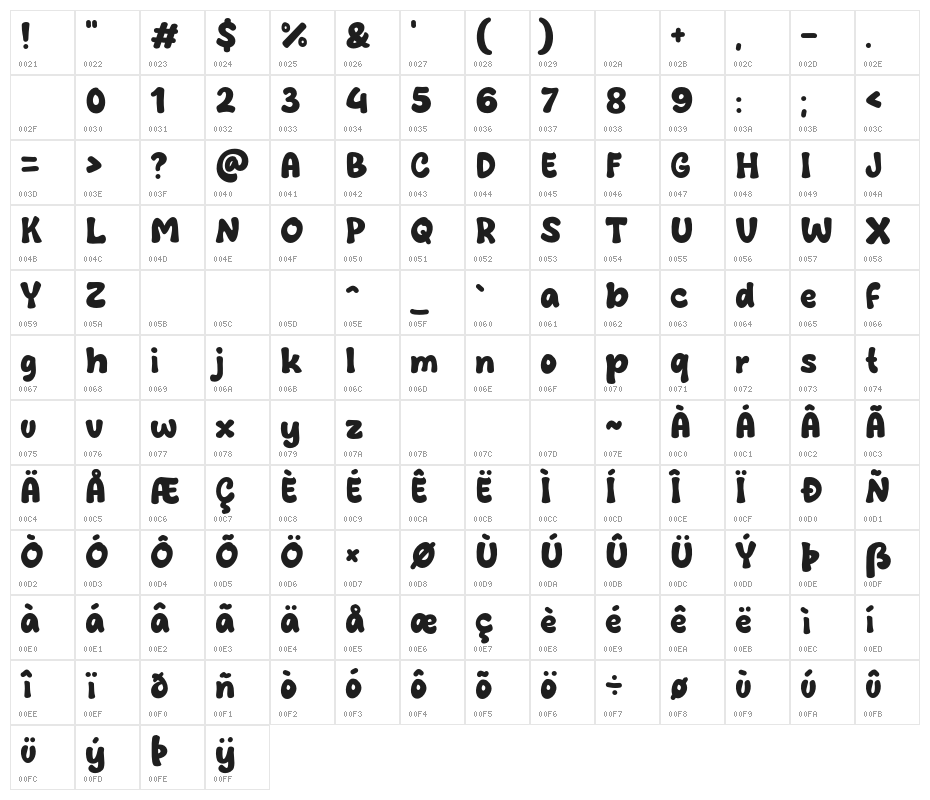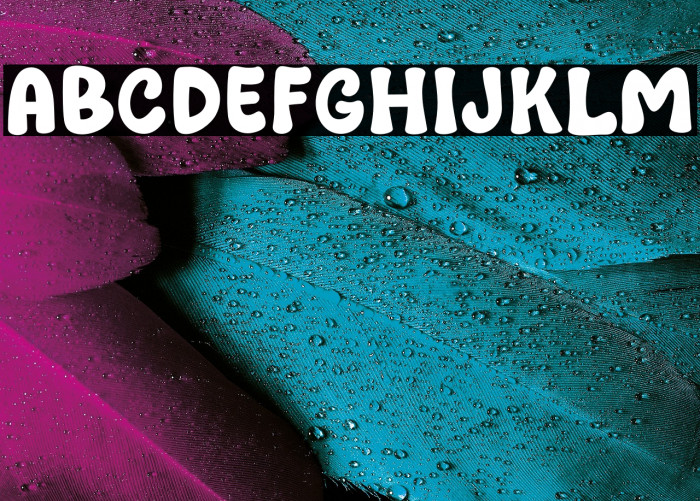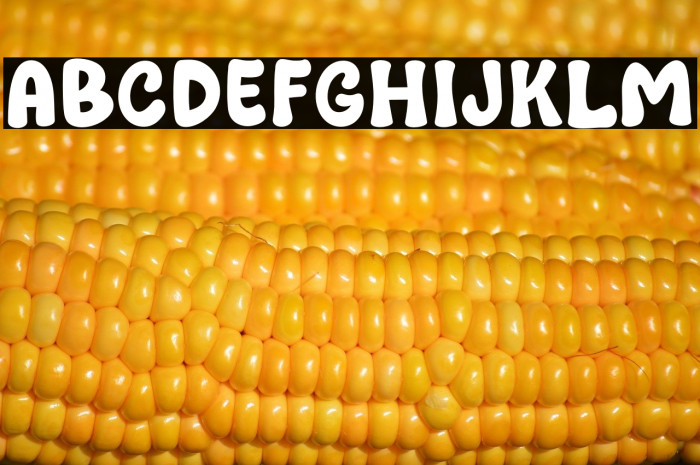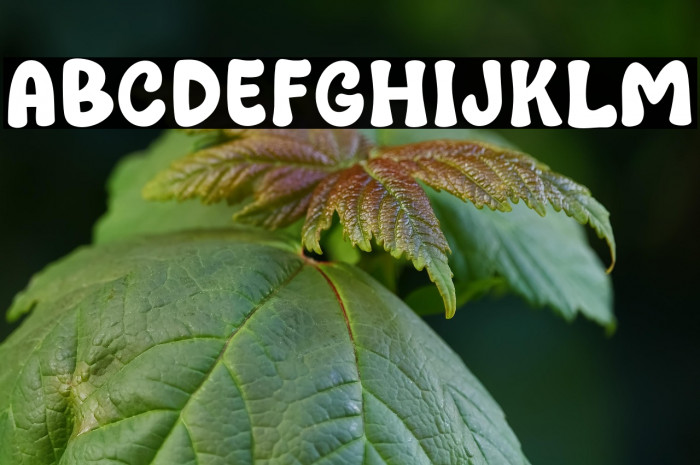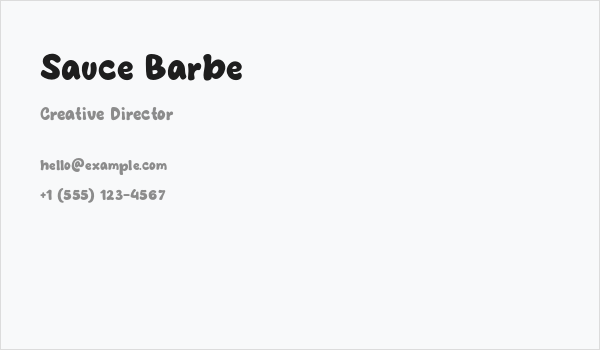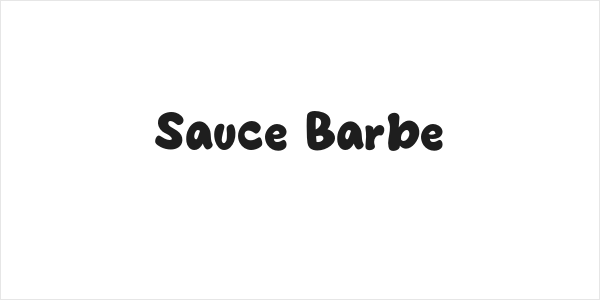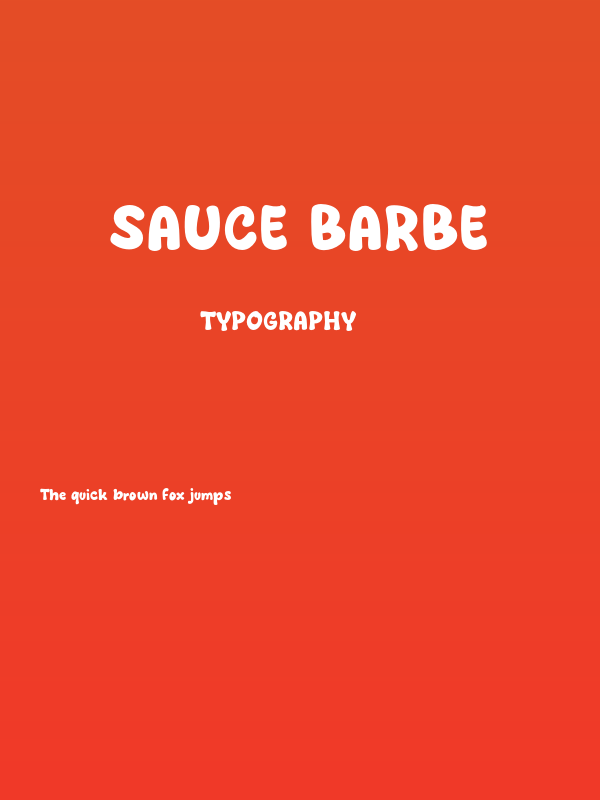
Sauce Barbe Font
Sauce Barbe Description
This font features a playful and bold style with rounded edges, giving it a friendly and approachable appearance. The letters are thick and have a consistent stroke width, contributing to a uniform look across both uppercase and lowercase characters. The numbers and special characters maintain the same playful aesthetic, making the font suitable for informal and fun designs. Its boldness ensures high readability, while the rounded forms add a touch of whimsy. The font's design is consistent, with each character maintaining a similar height and width, ensuring a balanced and cohesive appearance.
| Proposed Projects | Ideal for children's books, playful branding, posters, and informal invitations. |